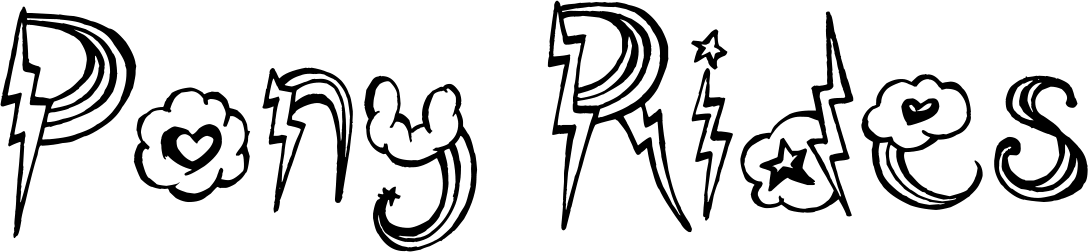
Pony Rides Font
Considering the cool and dreamy design of Pony Rides, once this lightning font is applied to your text, playfulness will be an obvious trait of your typography. Pony Rides highlights your letters with its own unique characters that seemingly are drawings of rainbows, lightning, stars, and hearts.
Though it might be designed to be intentionally a little bit hard to read, it manages to give your websites, posters, social media posts, or else a rather creative distinctive look.